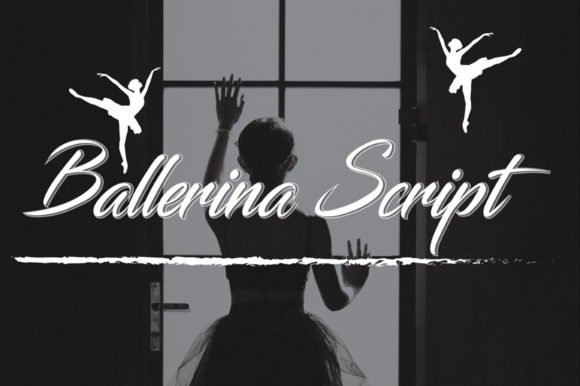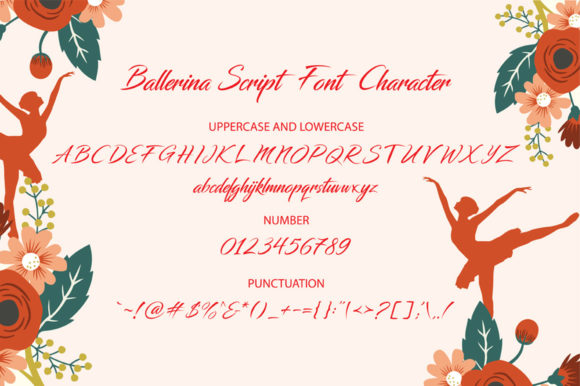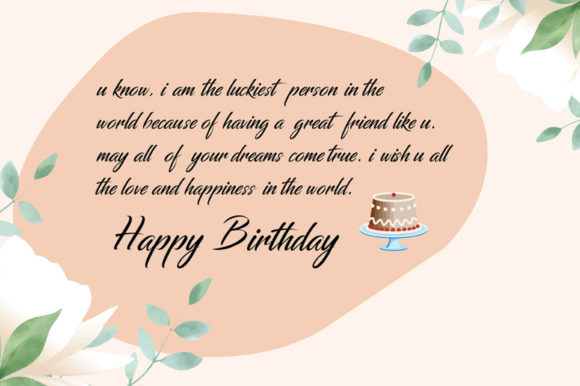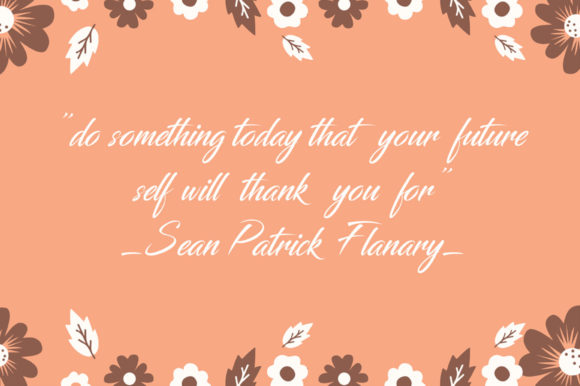
The Perfect Font for Every Occasion: Ballerina Script Font
Do you ever find yourself staring at a blank page, struggling to find the perfect font to bring your design to life? You’re not alone. As creatives, we’ve all been there – searching for that elusive combination of style and elegance that makes our work truly special.
Enter the Ballerina Script Font, a stunning handwritten font designed to capture the essence of beauty and sophistication. With its sleek and elegant style, Ballerina Script Font is the perfect addition to any design project, whether you’re working on a wedding invitation, a branding campaign, or a social media post. This versatile font is a true favorite among designers, and for good reason – its unique charm and character make it a valuable asset in any creative arsenal.
Ballerina Script Font Key Features
- Unique Characteristics: Elegant, cursive script with a touch of whimsy and playfulness, making it perfect for creative and artistic projects
Ballerina Script Font Review
At first glance, the Ballerina Script Font seems like a beautiful addition to any design project. ✨ Its elegant, cursive style is reminiscent of traditional ballerina attire, making it perfect for wedding invitations, fashion brands, and other feminine-themed designs. The font’s flowing lines and swashes add a touch of sophistication and whimsy to any text.
- Works well in titles and headings, adding a touch of elegance and sophistication.
- Perfect for designs that require a touch of femininity and whimsy.
- Can be used in a variety of contexts, from fashion to wedding invitations.
However, there are some limitations to consider. ⚠️ The font can be quite dense and may not be the best choice for long blocks of text. Additionally, the swashes and flourishes can be distracting if not used thoughtfully.
Overall, I think the Ballerina Script Font is a great choice for designers looking to add a touch of elegance and sophistication to their projects. While it may not be the best choice for every design, it’s a versatile and beautiful font that can add a unique touch to the right project.
Tips for Getting the Most Out of the Ballerina Script Font
Use the Ballerina Script Font for titles, headings, and other decorative text elements. Experiment with different font sizes, colors, and combinations to create a unique look. You can also use the font in conjunction with other fonts to create a visually appealing design.
The Ballerina Script Font is perfect for creating feminine and elegant designs. Use it for wedding invitations, baby shower invitations, and other special occasion designs. You can also use the font for blog headers, social media graphics, and other online content.
Alternatives to Ballerina Script Font
Great Vibes is a beautiful, elegant script font perfect for creating a whimsical and romantic atmosphere. It’s ideal for wedding invitations, greeting cards, and other designs that require a touch of sophistication. Great Vibes has a similar flowing feel to Ballerina Script Font, but with more subtle flair and a wider range of characters.
Alex Brush is a handwritten script font that’s perfect for adding a personal touch to designs. It’s ideal for blog posts, social media graphics, and other digital content that requires a friendly and approachable tone. Compared to Ballerina Script Font, Alex Brush has a more casual and relaxed feel, making it perfect for everyday use.
Carolyna Pro is a modern script font that’s perfect for creating a luxurious and elegant atmosphere. It’s ideal for high-end branding, luxury packaging, and other designs that require a touch of sophistication. Compared to Ballerina Script Font, Carolyna Pro has a more refined and polished feel, making it perfect for high-end designs.